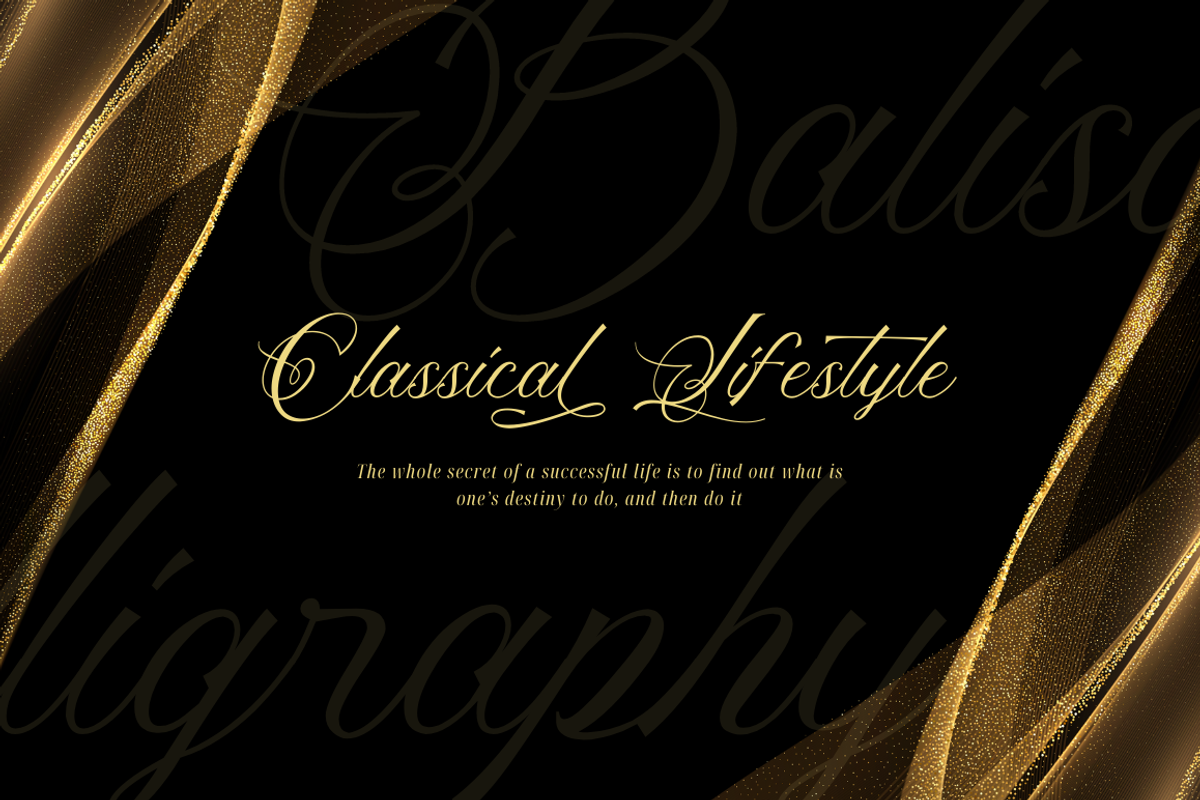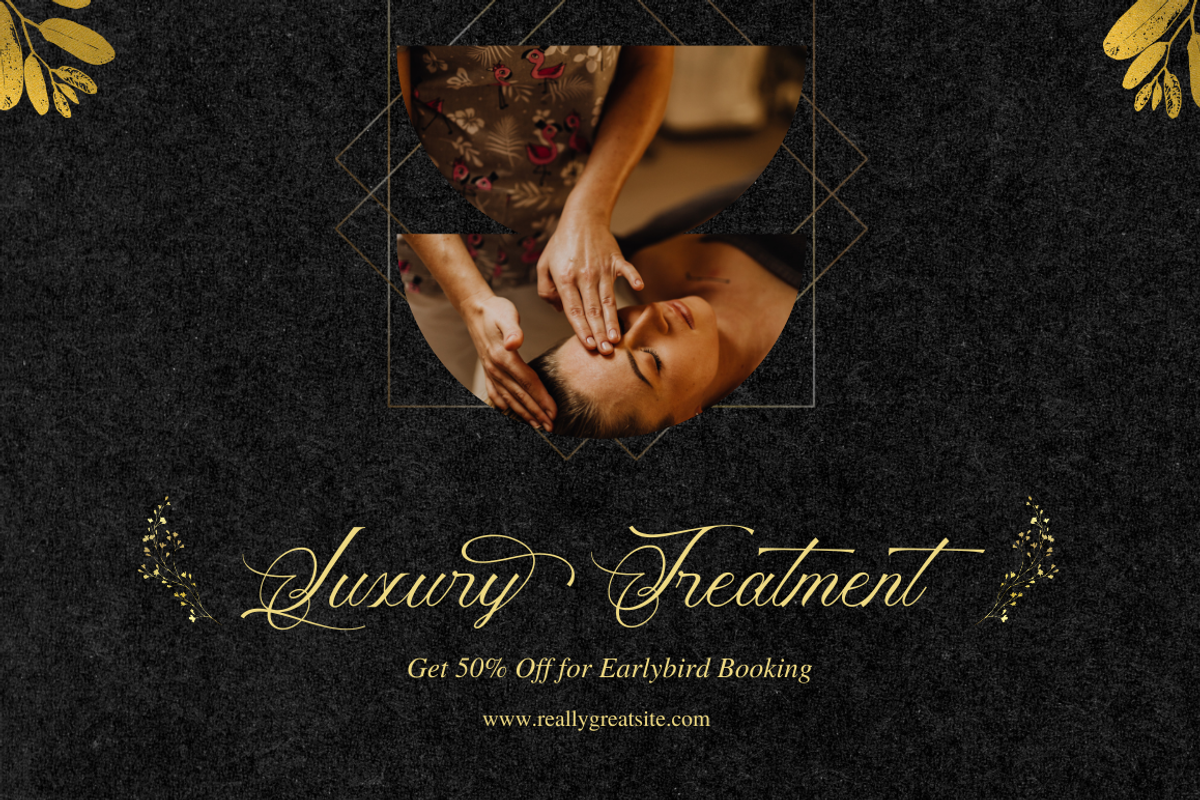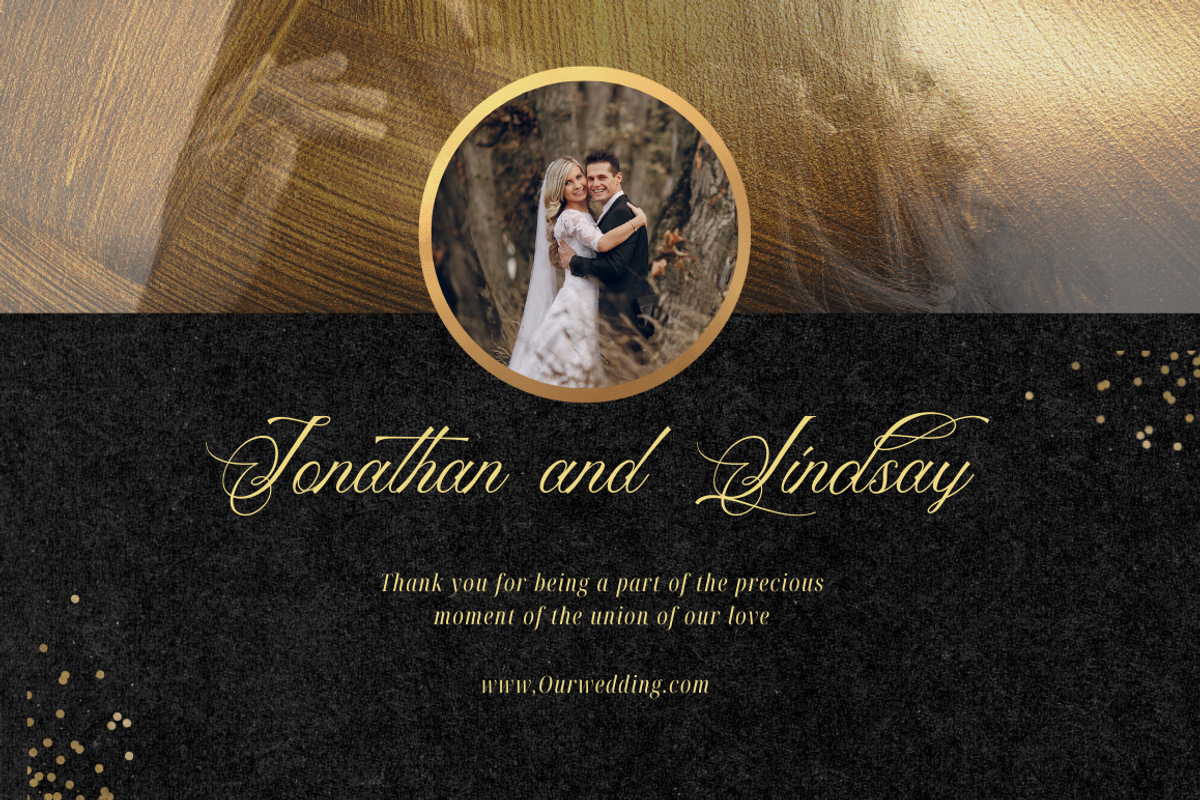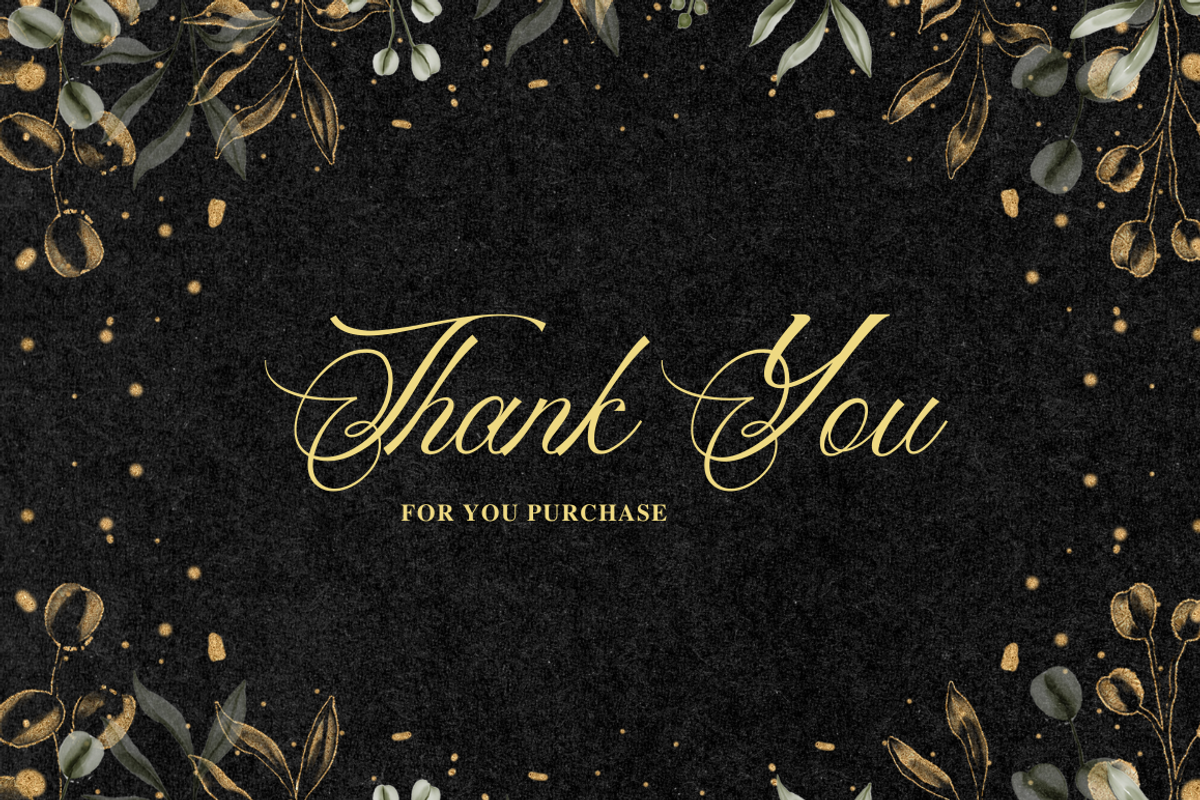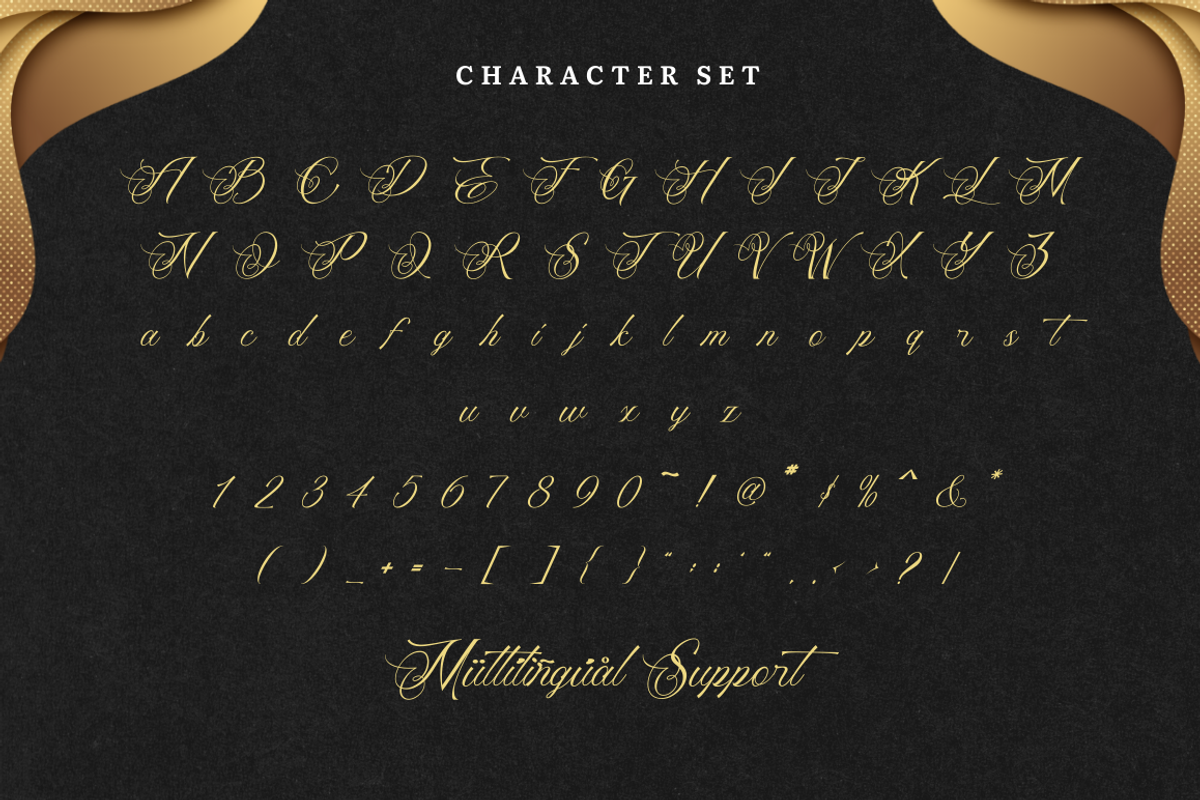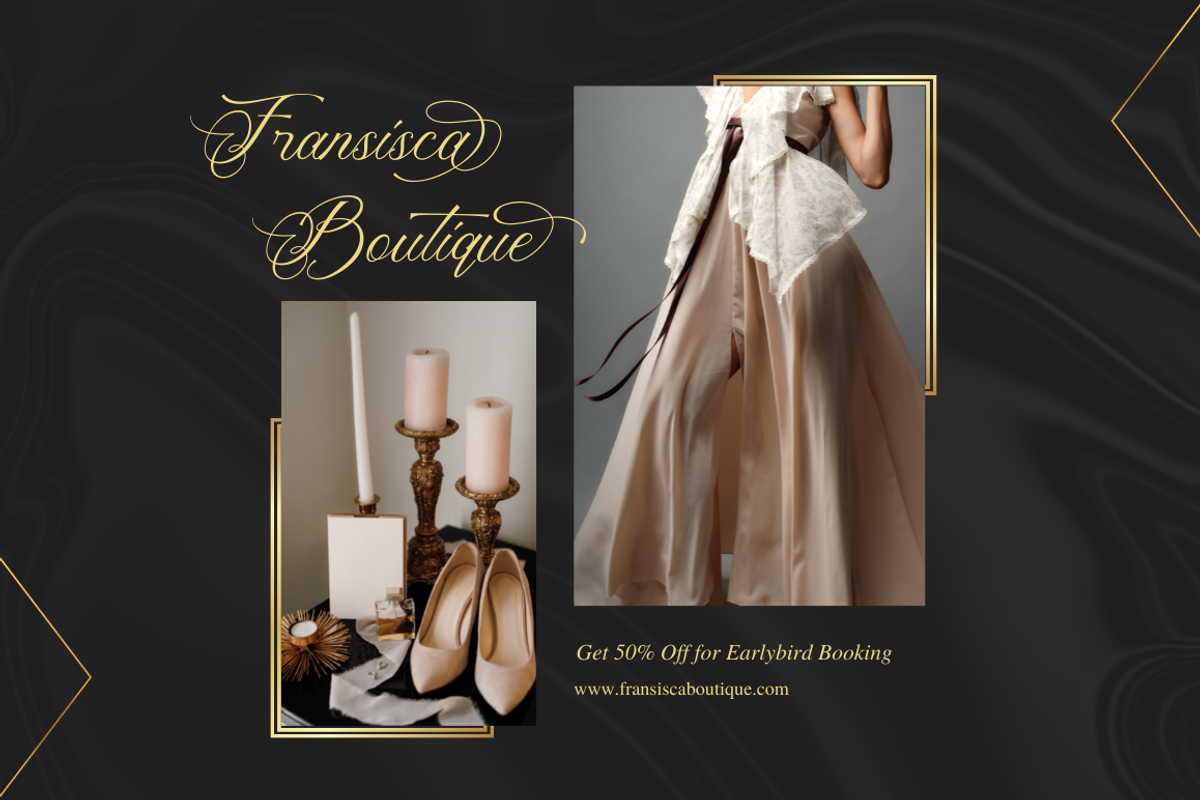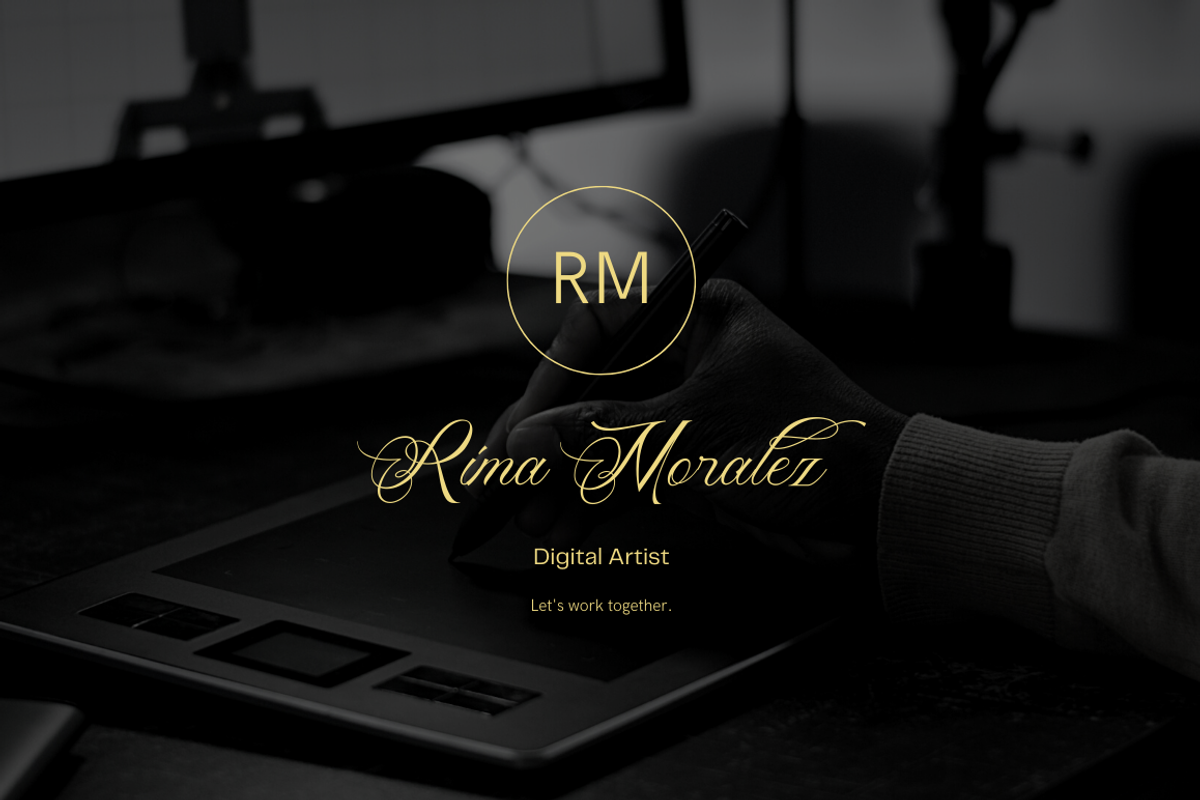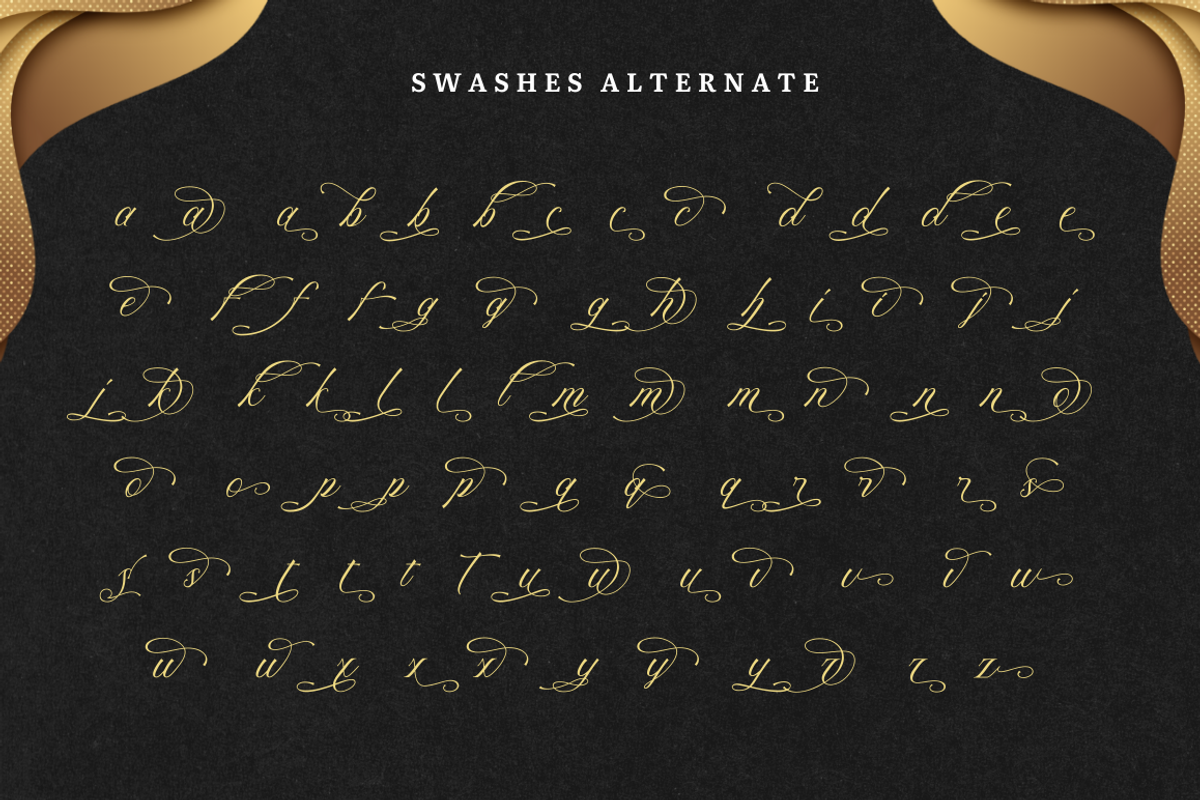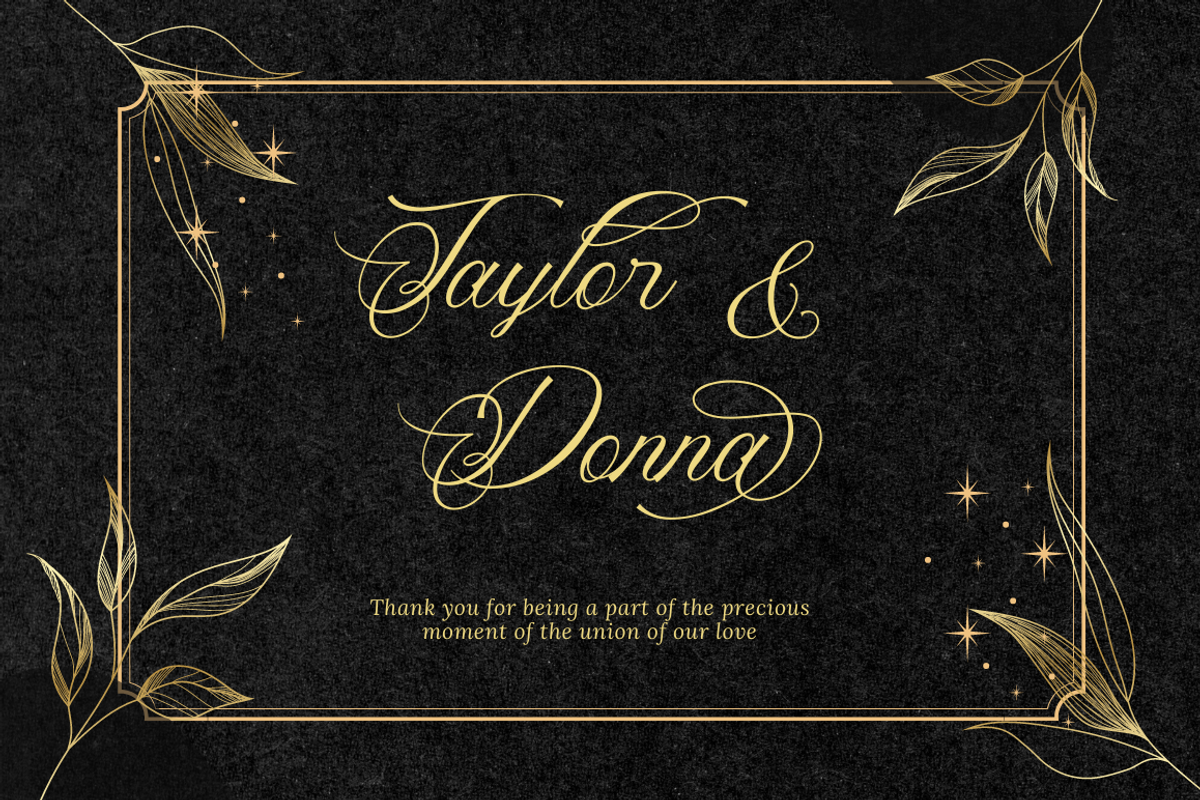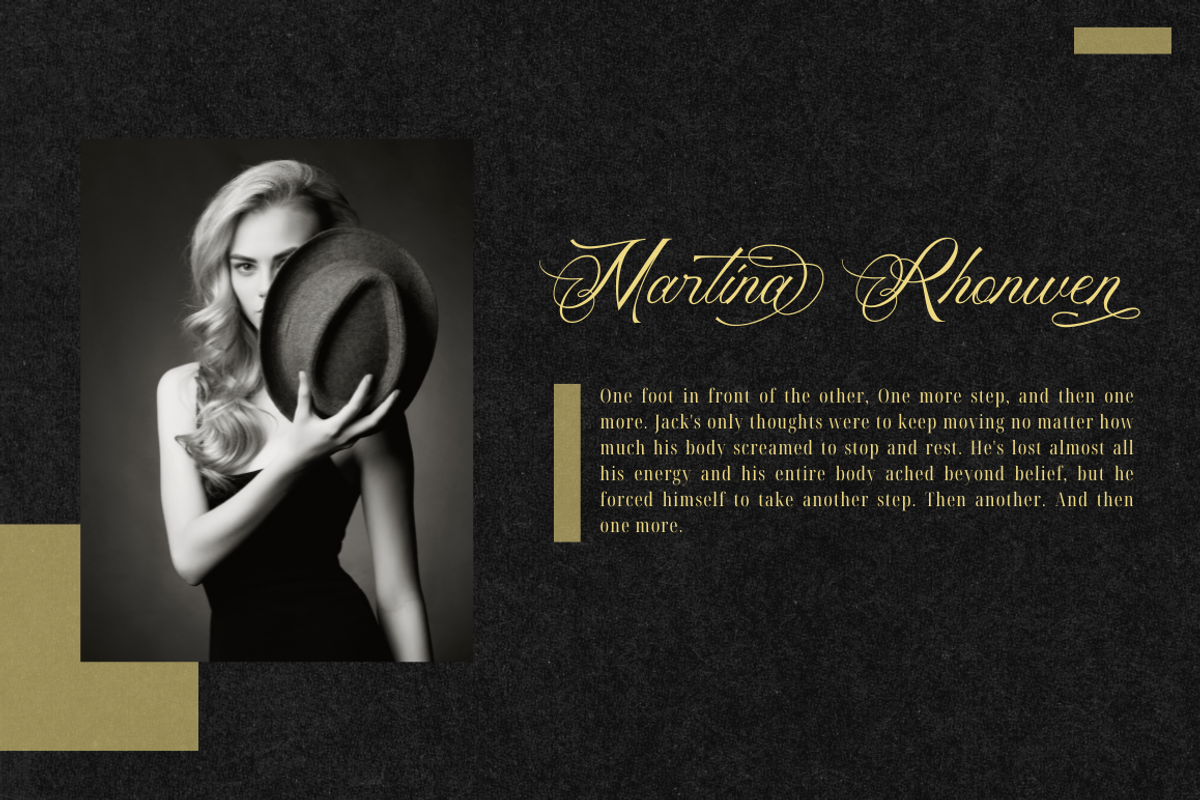
Balisay - Calligraphy Font
Meet Balisay, A Calligraphy font that is perfect for branding, invitation, stationery, wedding designs, social media posts, advertisements, product packaging, product designs, label, photography, watermark, special events, and more.
- Uppercase and lowercase letters
- 70+ Lowercase Swash alternates
- Multilingual symbols, numerals, and punctuation